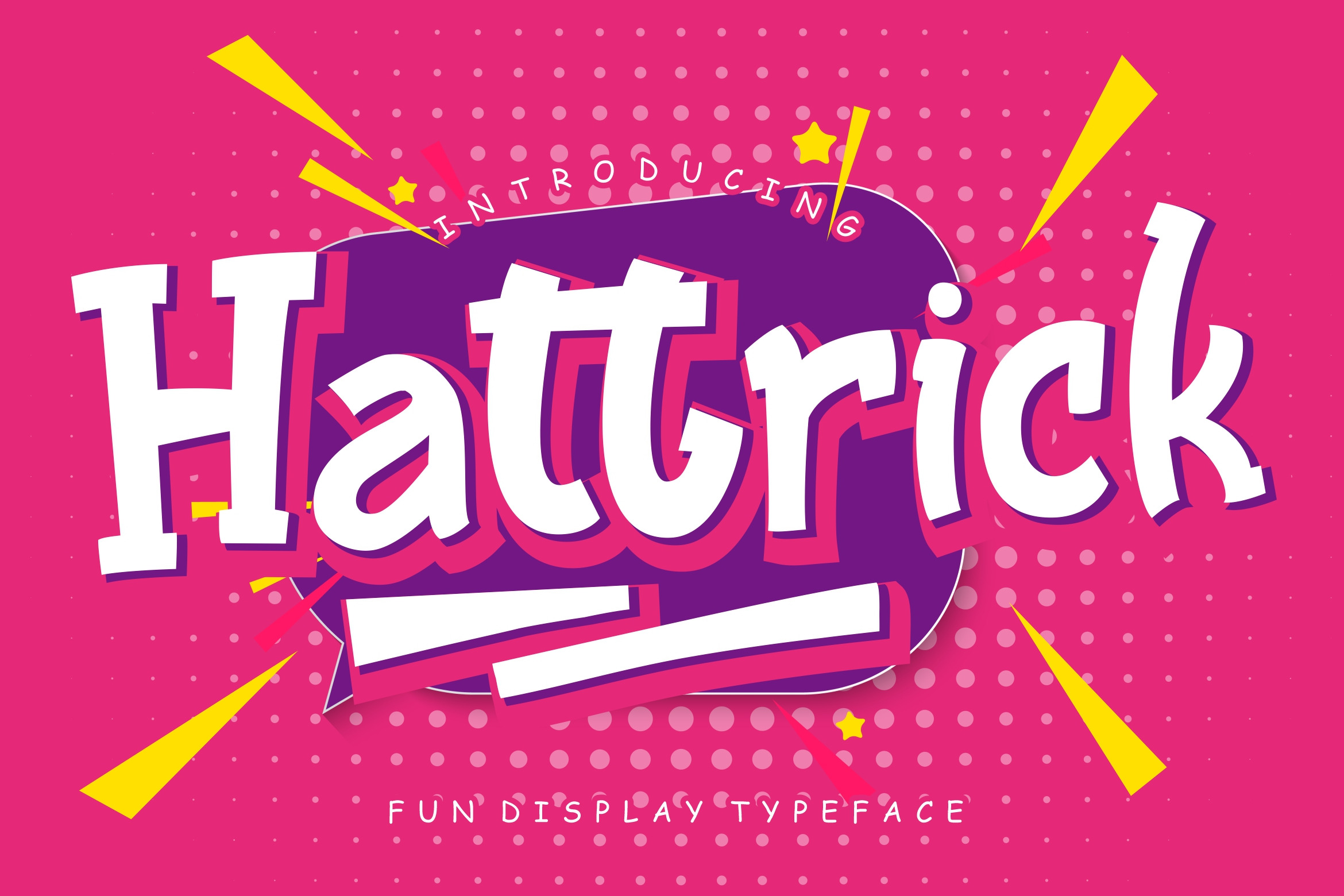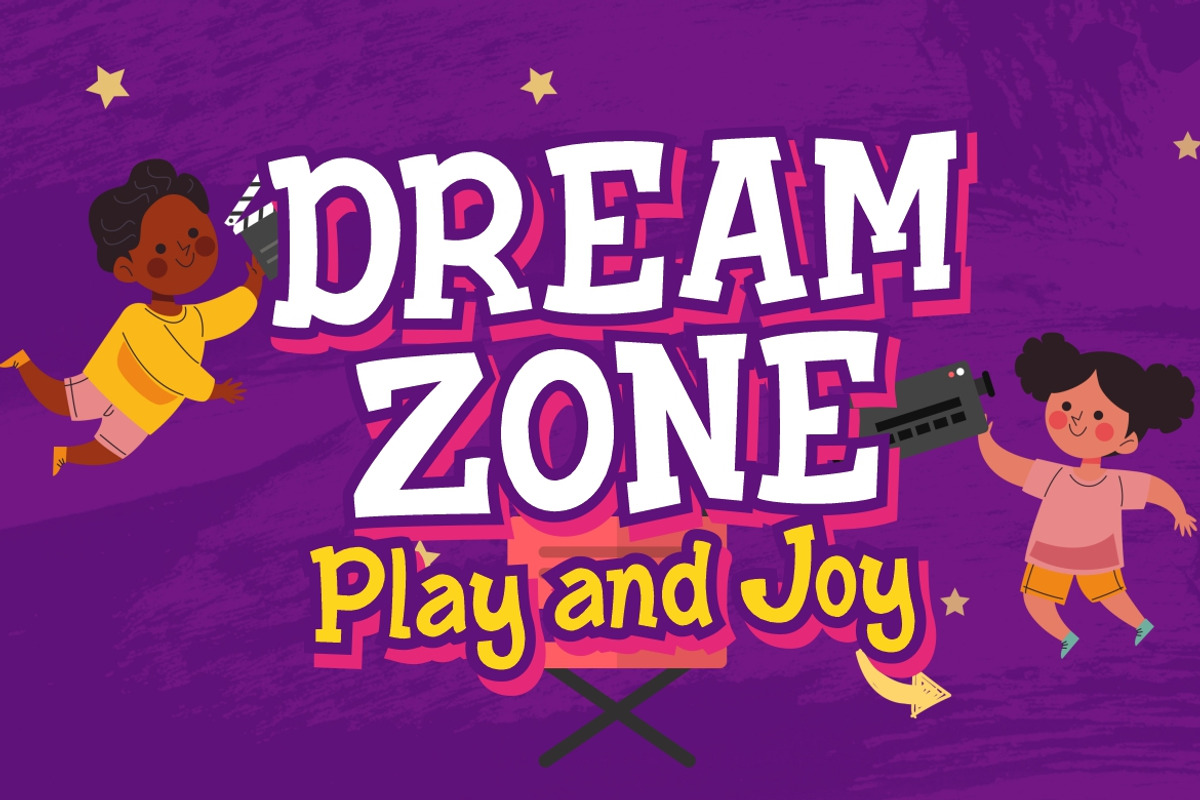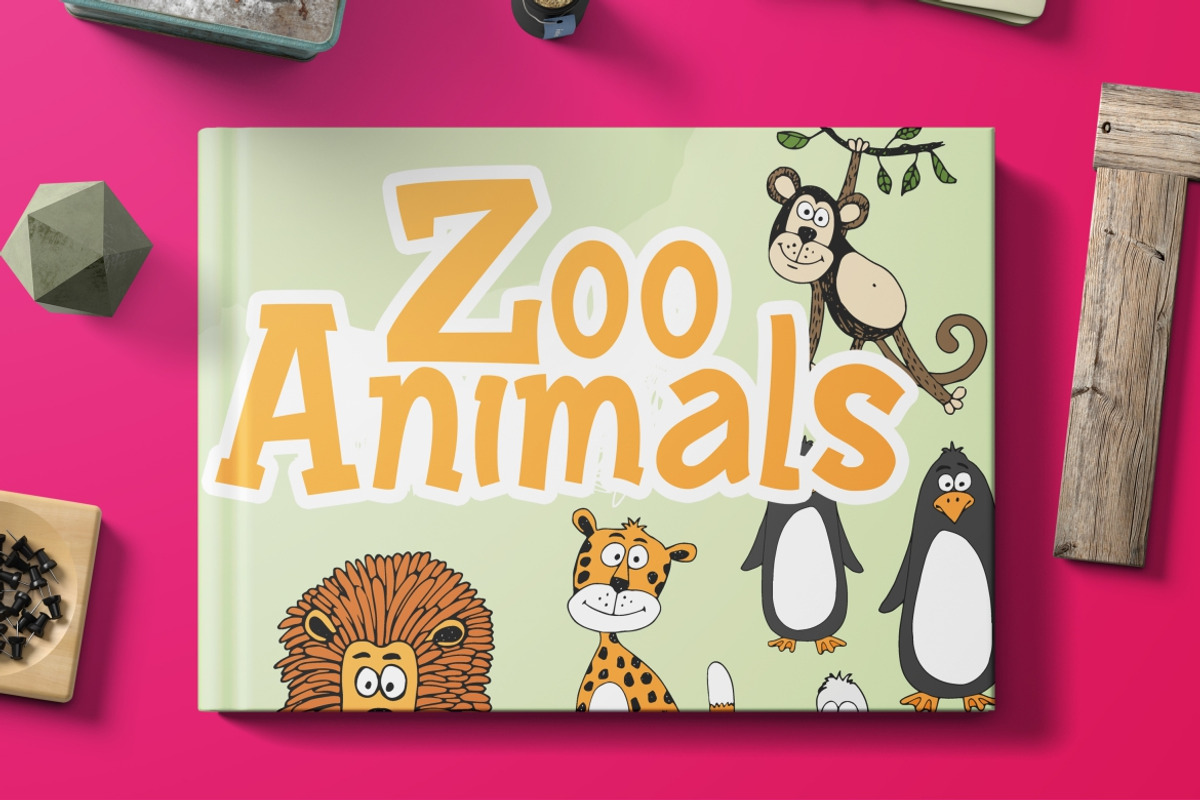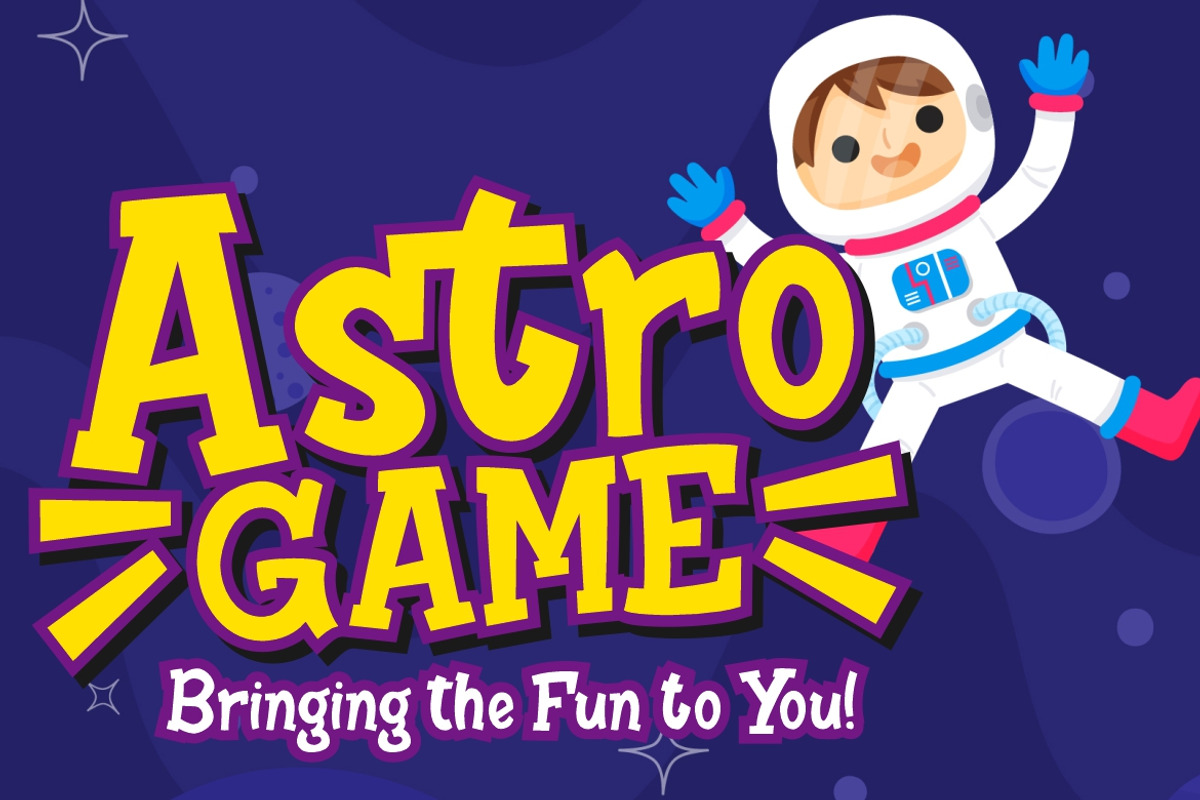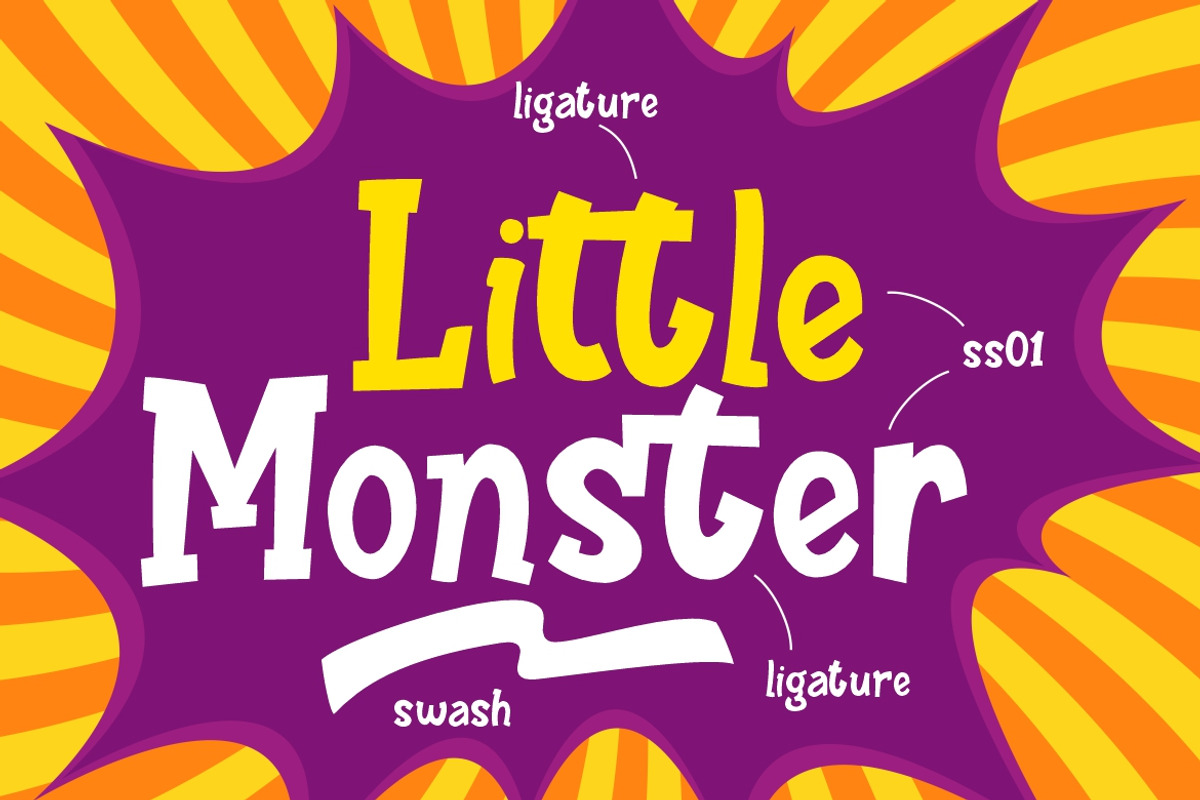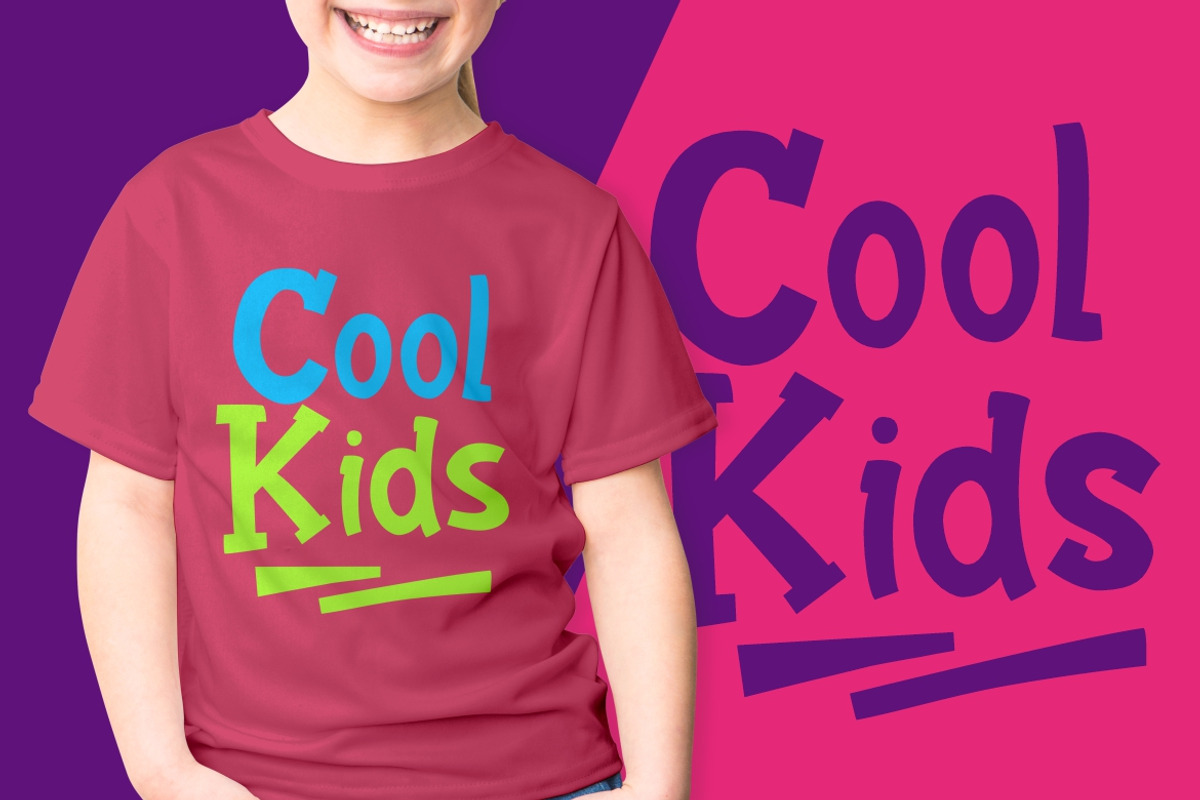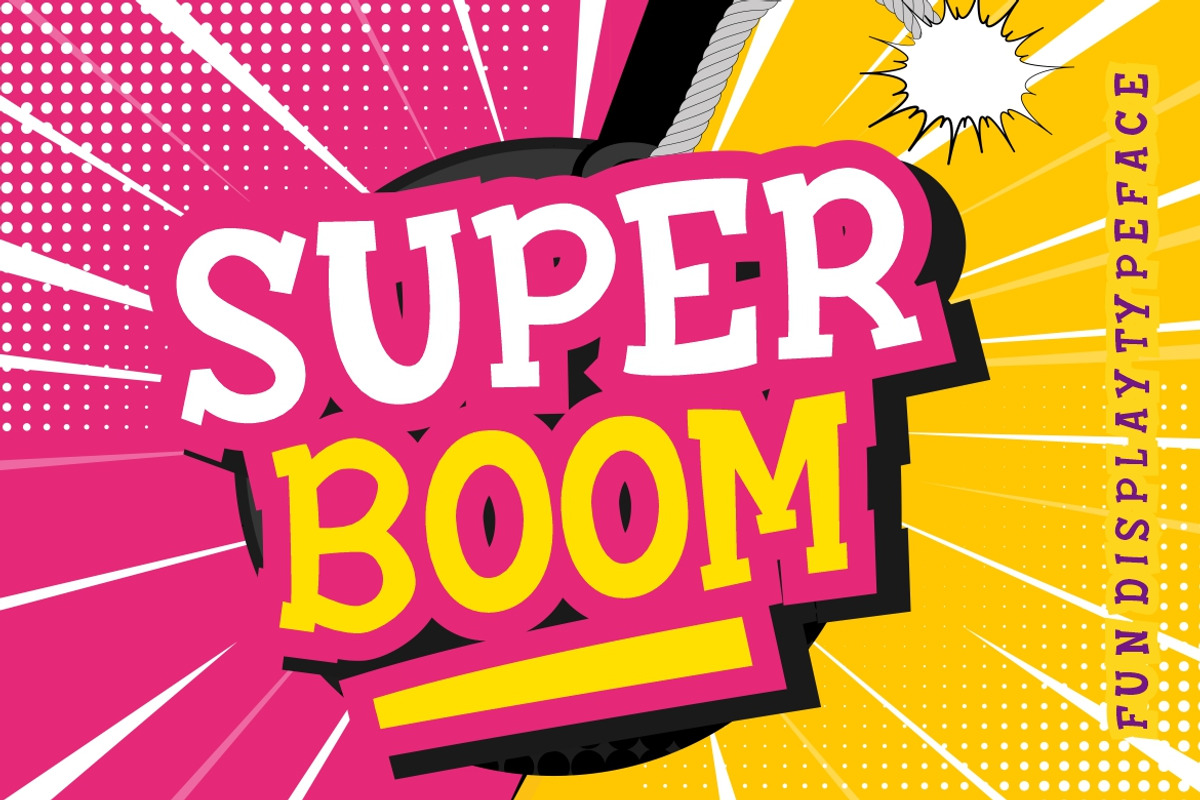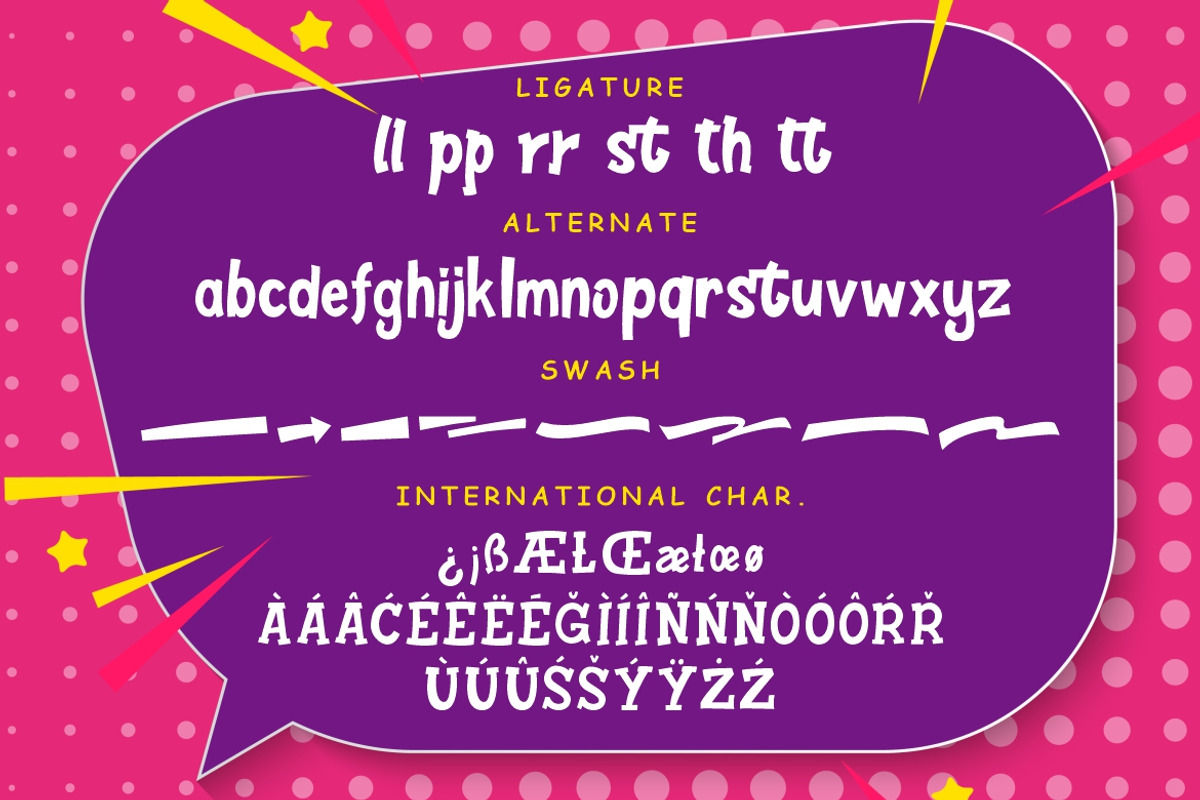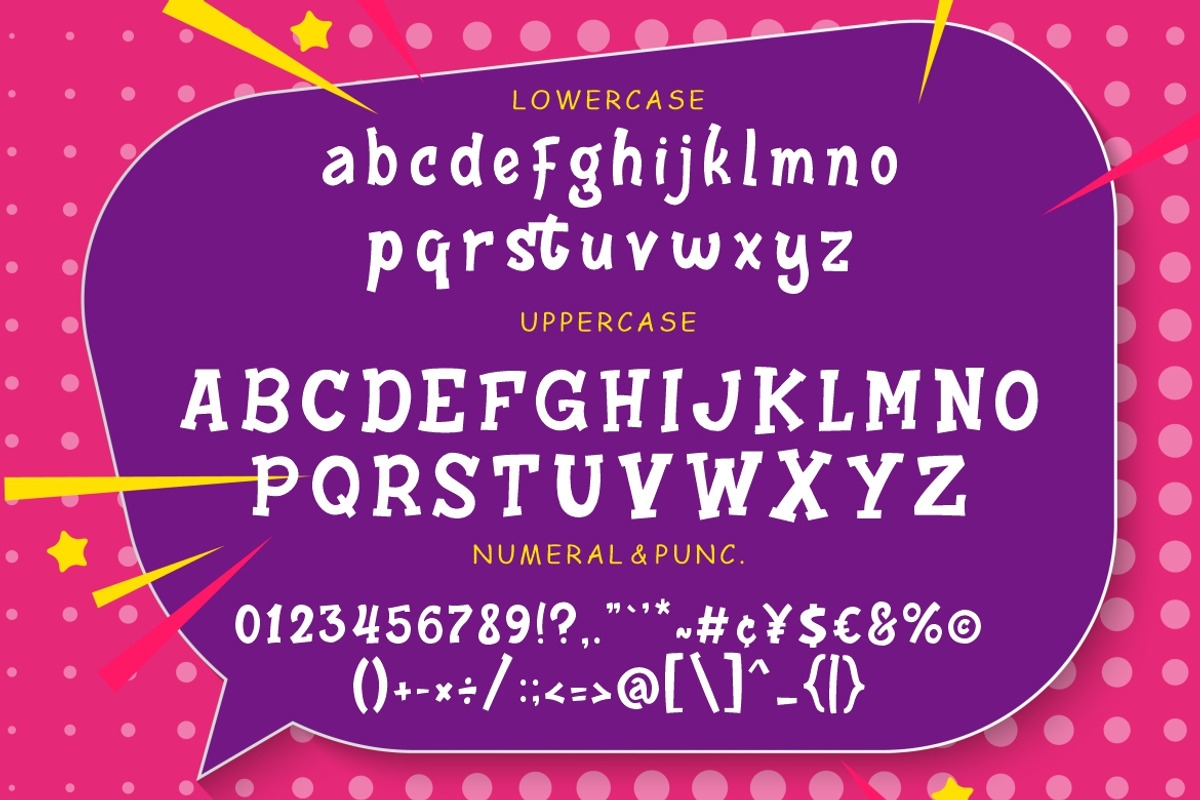
Hattrick Fun Children Typeface
Hattrick is fun display font that perfect for kindergarten and children event.
Hattrick is perfect for branding projects, logo, wedding designs, social media posts, advertisements, product packaging, product designs, label, photography, watermark, invitation, stationery and any projects that need handwriting taste.
- Ligature & Alternate